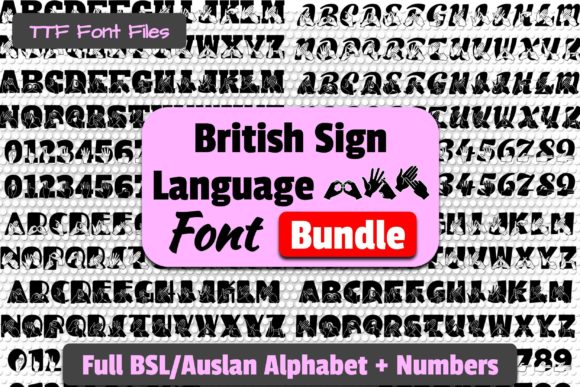
Unlock Creative Possibilities with Able Lingo BSL 1-5 Font
Are you a designer, crafter, or creative enthusiast looking for a unique and captivating font to elevate your projects? Look no further than the Able Lingo BSL 1-5 Font, a decorative font bundle inspired by the British Sign Language (BSL). This innovative font collection is designed to add a touch of personality and flair to your designs, making them more interesting and appealing to your audience.
What is Able Lingo BSL 1-5 Font?
Able Lingo BSL 1-5 is a carefully crafted font bundle that takes inspiration from the British Sign Language, providing a distinctive and eye-catching style for your creative projects. The font is designed to be versatile and can be used in a wide range of applications, from graphic design and crafting to digital art and visual communication.
Key Features of Able Lingo BSL 1-5 Font
- Inspired by British Sign Language: The font’s unique design is rooted in BSL, making it a standout choice for designers and crafters looking to add a touch of authenticity and cultural sensitivity to their work.
- Decorative and Eye-Catching: The Able Lingo BSL 1-5 font is perfect for creating visually appealing designs that grab attention and leave a lasting impression.
- Versatile and Adaptable: This font bundle can be used in various creative projects, from digital art and graphic design to crafting and visual communication.
The Able Lingo BSL 1-5 font offers numerous benefits for designers and crafters, including:
- Unique Design Element: Add a touch of personality and flair to your designs with a font that stands out from the crowd.
- Cultural Significance: Show your appreciation and respect for British Sign Language and culture by incorporating this font into your work.
- Increased Engagement: Create visually appealing designs that capture your audience’s attention and encourage engagement.
Tips and Inspiration for Your Projects
To get the most out of the Able Lingo BSL 1-5 font, here are some tips and inspiration for your projects:
- Experiment with Colors and Textures: Combine the font with different colors and textures to create visually appealing designs.
- Play with Font Sizes and Styles: Use different font sizes and styles to add emphasis and hierarchy to your designs.
- Mix and Match with Other Fonts: Combine the Able Lingo BSL 1-5 font with other fonts to create a unique and eye-catching typography.
The Able Lingo BSL 1-5 font is a versatile and eye-catching font bundle that can elevate your creative projects to the next level. With its unique design inspired by British Sign Language, this font is perfect for designers, crafters, and creative enthusiasts looking to add a touch of personality and flair to their work. So why wait? Download the Able Lingo BSL 1-5 font today and unlock a world of creative possibilities!